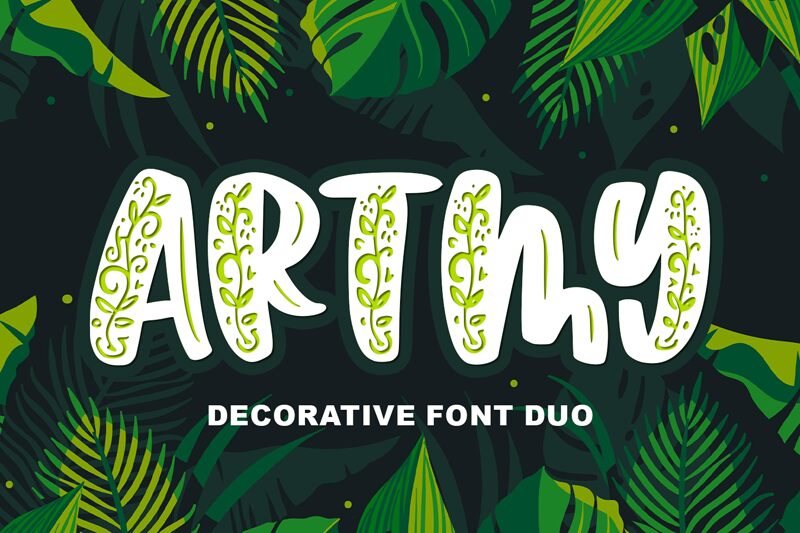
Artmy Ornament, crafted by Abo Daniel Studio, is a striking display font that embodies decorative elegance and bold aesthetics. Each letter is an intricate piece of art, adorned with an array of ornamental details that create a visually captivating experience. The exaggerated boldness enhances its presence, making it perfect for designs that demand attention and lavish detailing.
Ideal for headlines, event posters, invitations, and artistic projects, Artmy Ornament brings a touch of sophistication and flair to any creative endeavor. Its unique style stands out in both digital and print media, ensuring your message is both impactful and beautifully presented. Embrace the charm of Artmy Ornament to transform your designs into masterpieces of visual artistry.